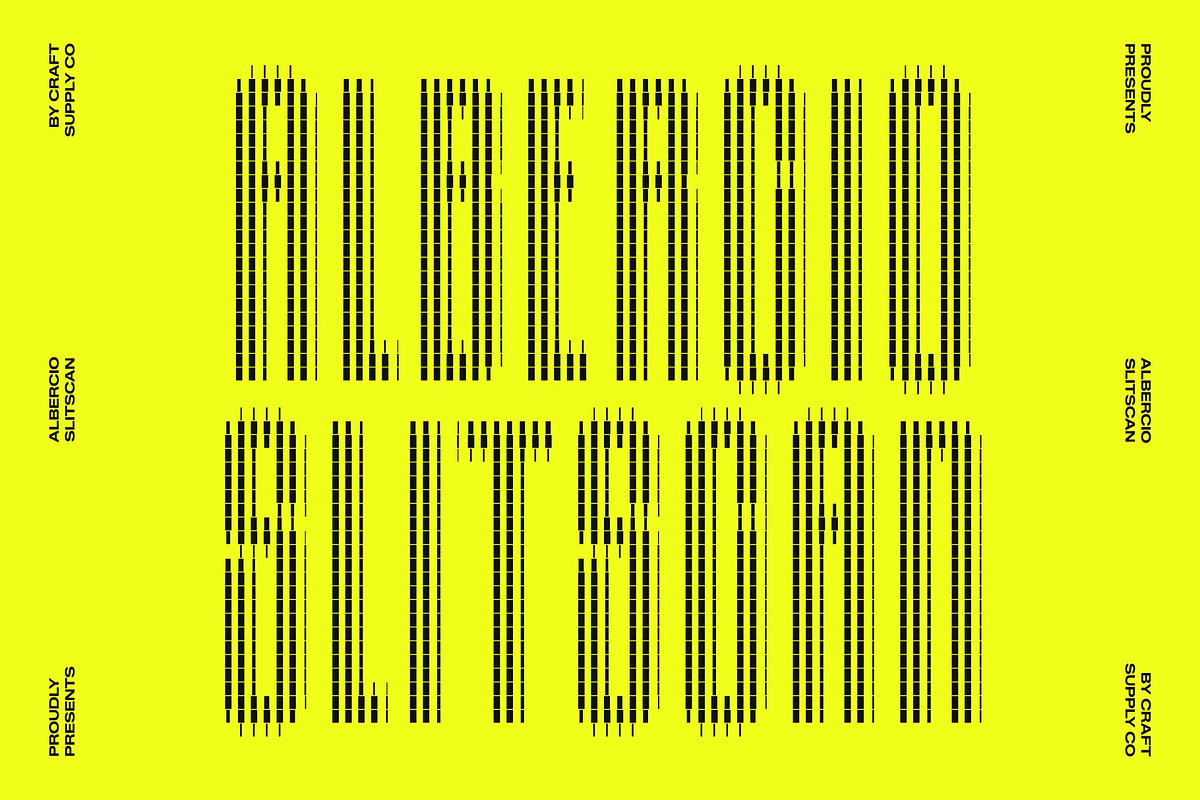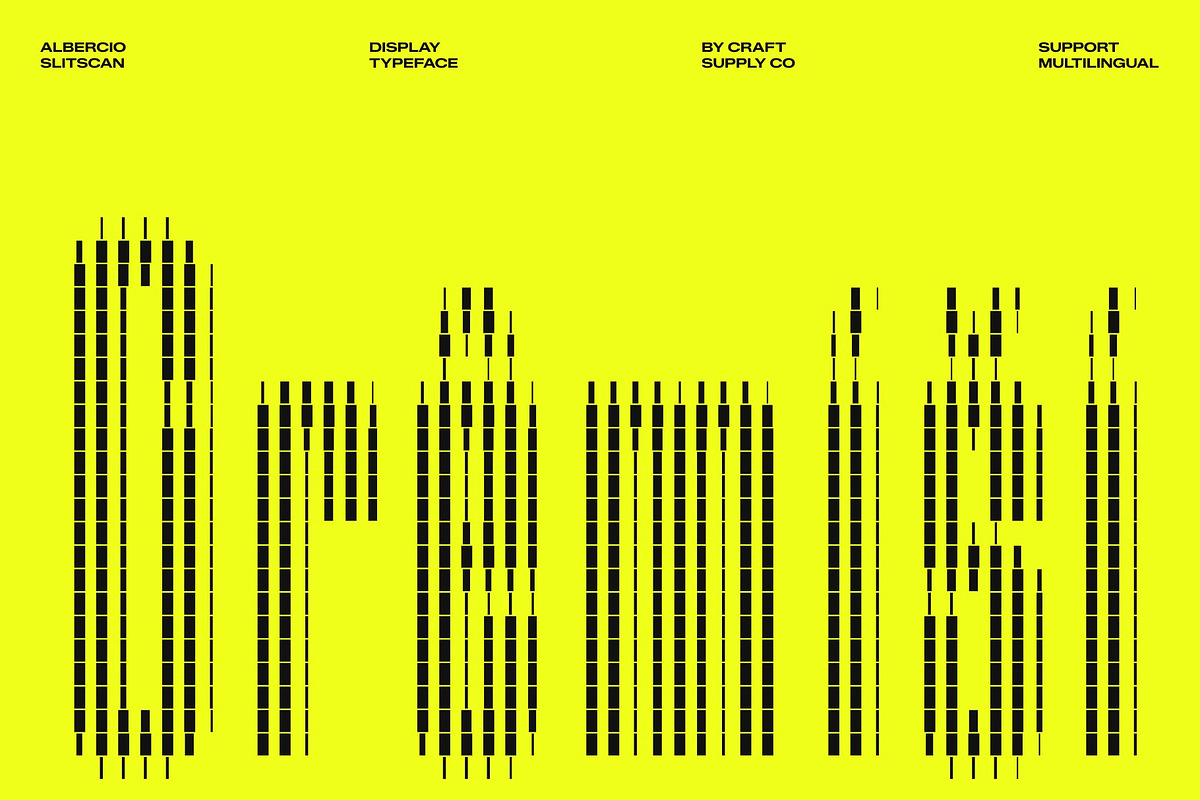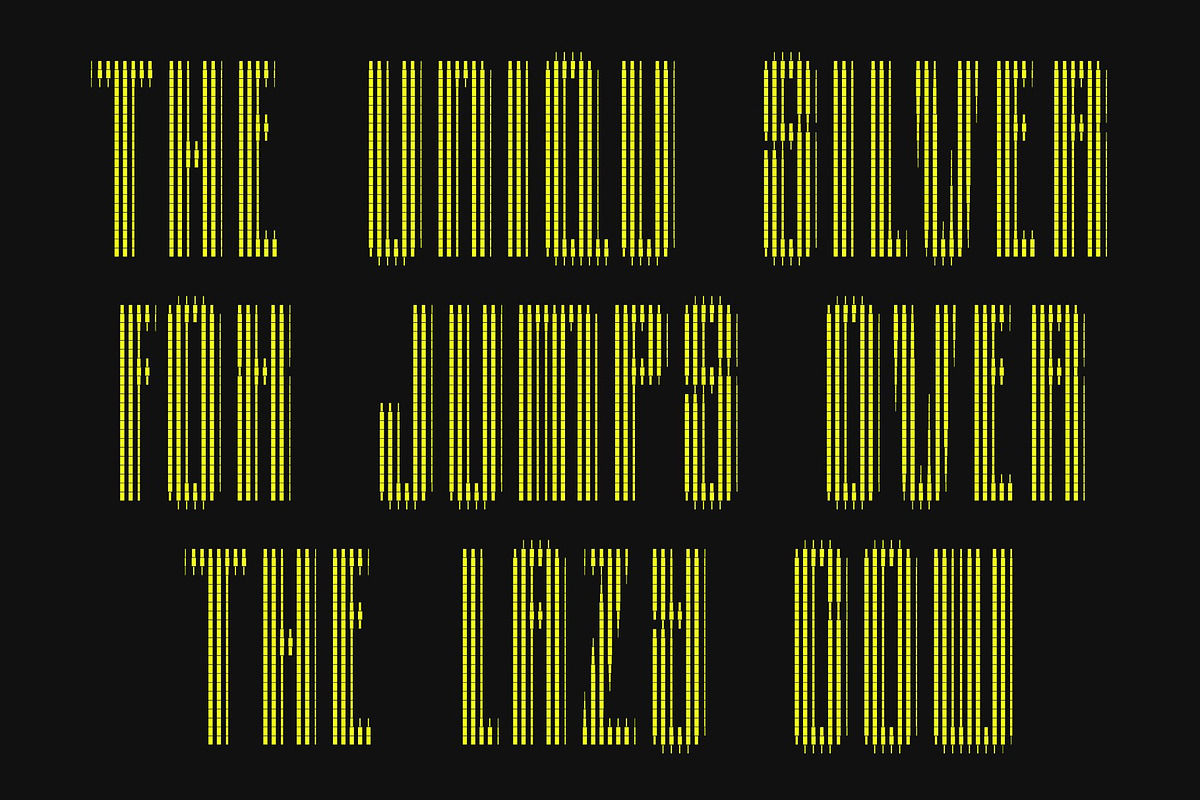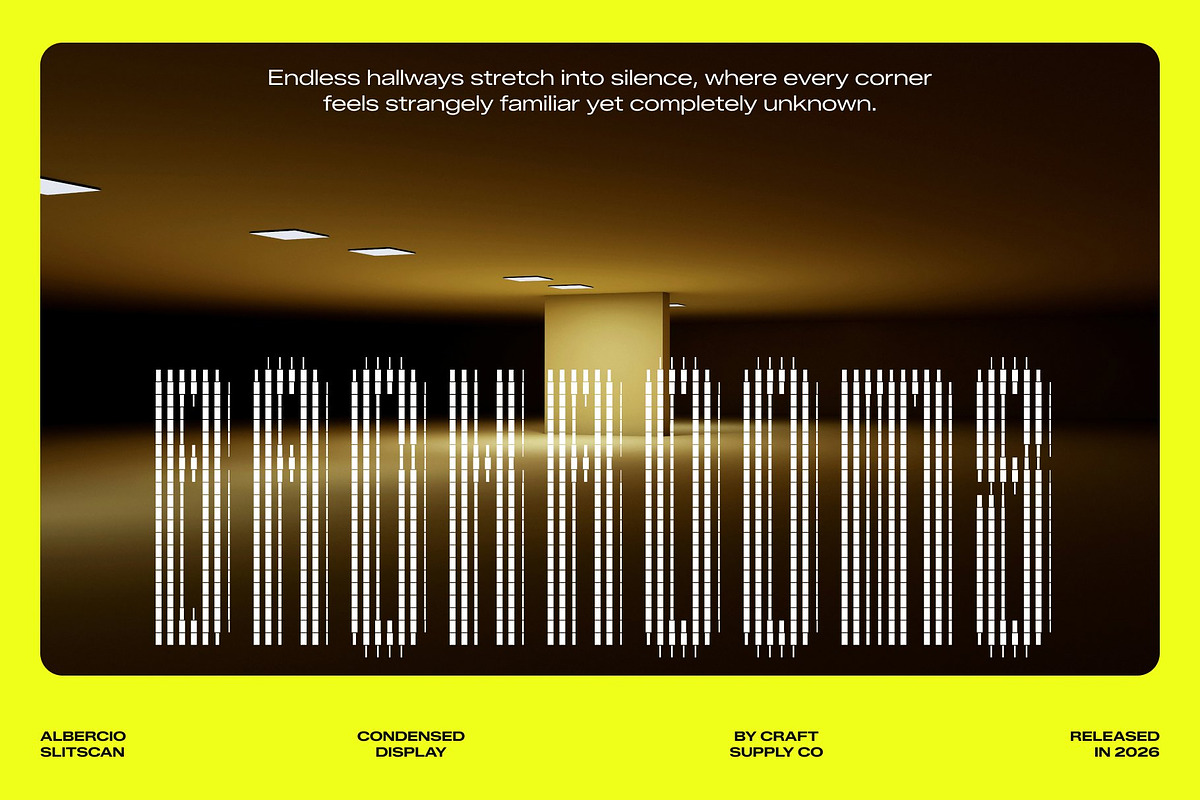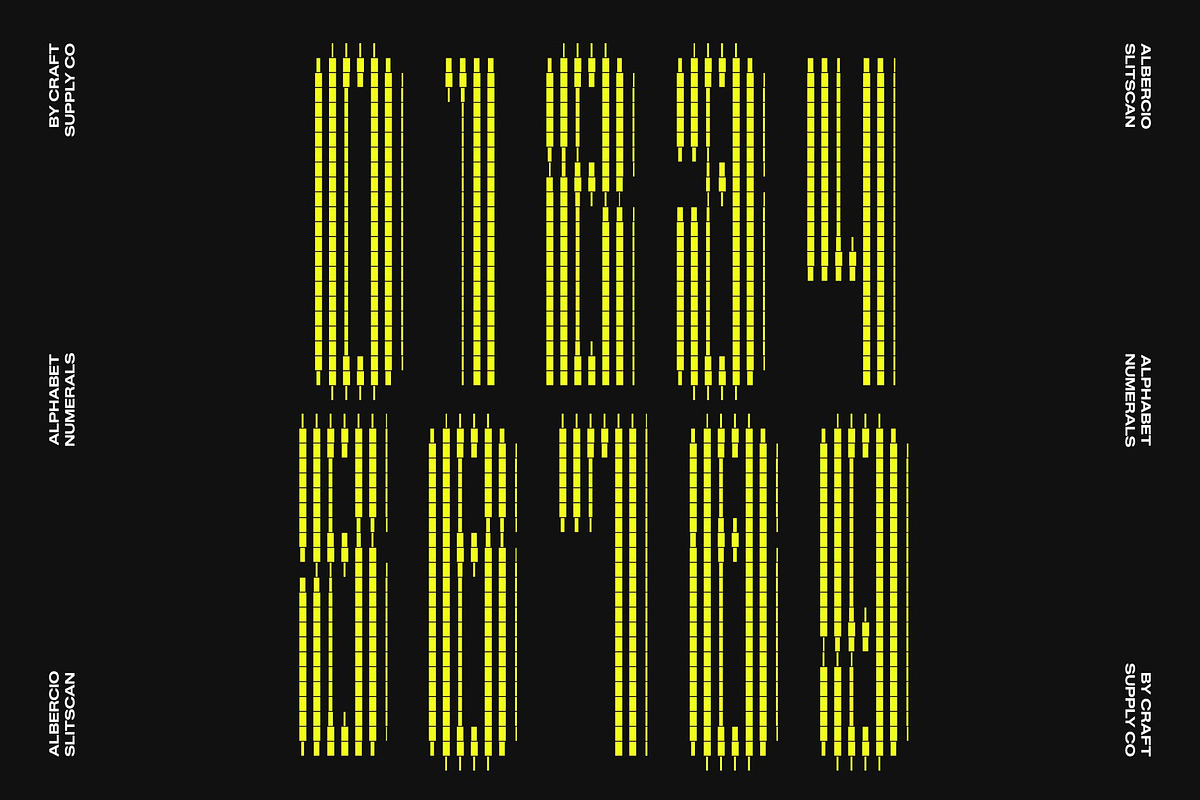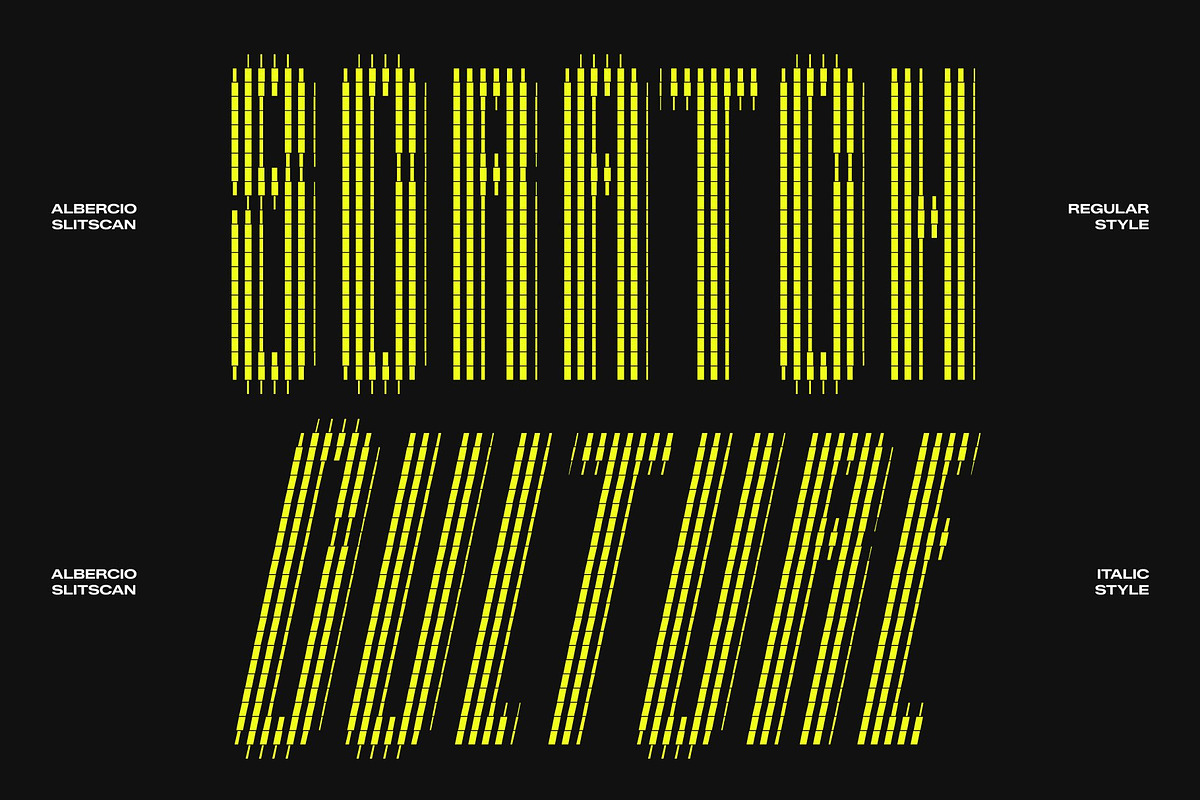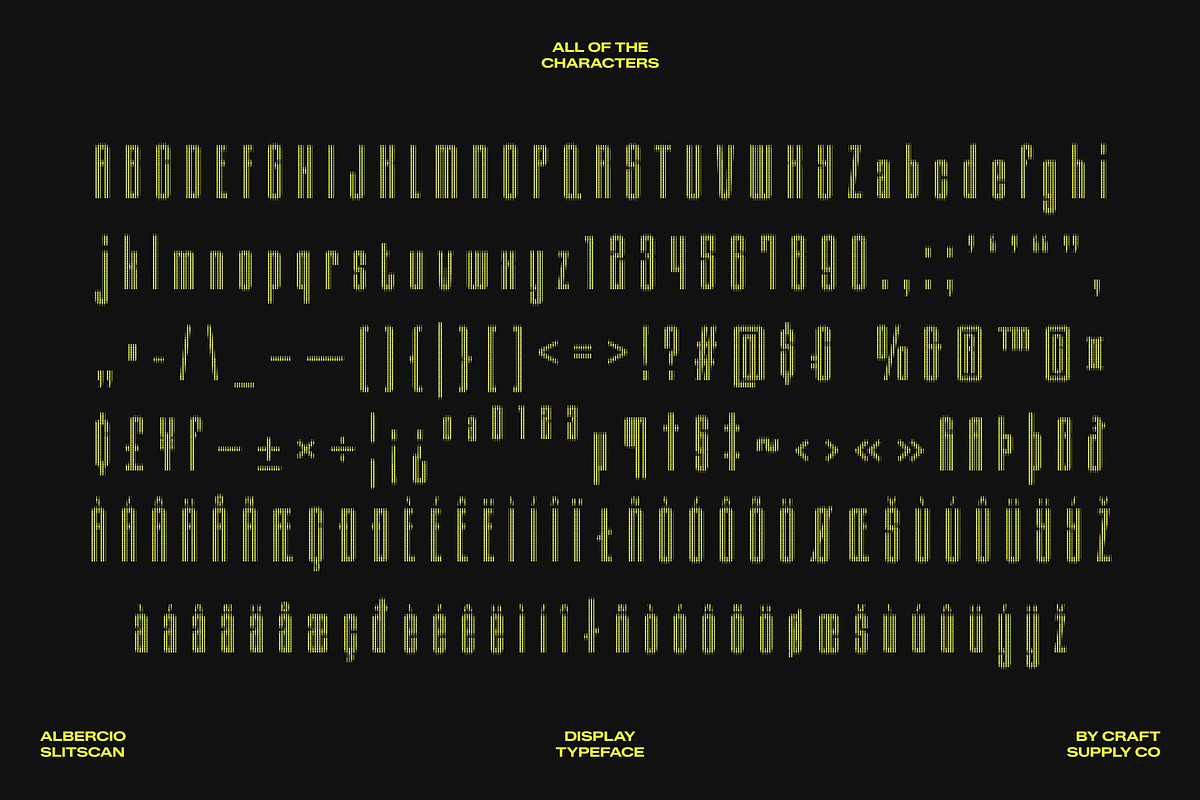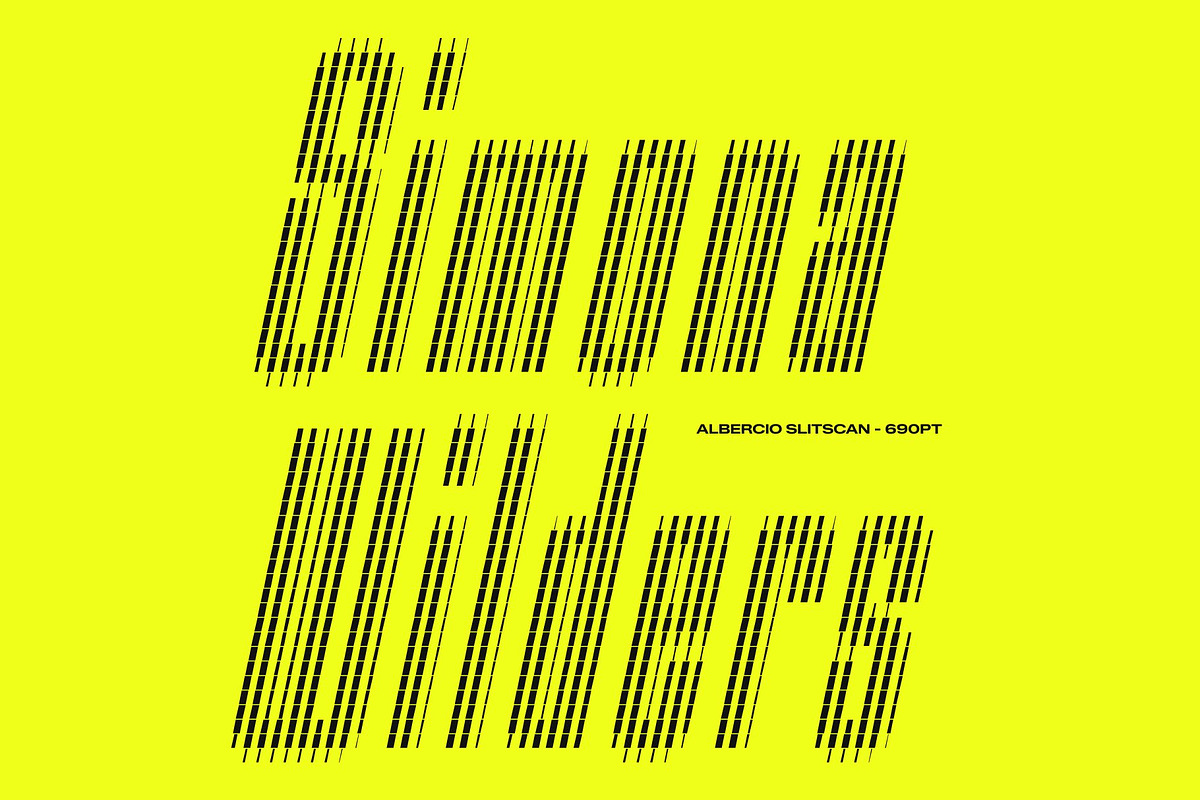
Albercio Slitscan
Albercio Slitscan – Condensed Sans Serif Font: Where Compact Power Meets Futuristic Distortion
Compact Forms with Strong Visual Impact This is a condensed sans serif font designed to deliver maximum impact in a streamlined form. Its narrow proportions and bold structure create a powerful visual presence while maintaining clarity and efficiency. Every character feels modern, focused, and highly functional, making the font ideal for designs that demand attention without sacrificing space.
Slitscan Effect with Futuristic Digital Energy This font draws inspiration from the iconic slit-scan visual technique. Vertical cuts, layered segments, and fragmented structures create a dynamic appearance filled with motion and technological intrigue. This effect introduces a futuristic cyberpunk atmosphere, blending glitch aesthetics, digital distortion, and experimental visual rhythm into every letterform.
Cyberpunk Style Meets Contemporary Typography This font delivers a typographic identity that feels innovative, energetic, and visually disruptive. Its fragmented forms evoke advanced technology, virtual environments, electronic culture, and digital experimentation, making it perfect for projects that embrace the future.
Perfect for Sci-Fi, Gaming, and Digital Design Ideal for sci-fi posters, experimental electronic album covers, technology competitions, branding, editorial layouts, tech-themed visuals, retro gaming graphics, cyber-inspired artwork, and digital events. Its futuristic slitscan forms make it perfect for headlines, logos, titles, promotional materials, and visual identities that seek a bold, high-tech, and unforgettable appearance.
Albercio Slitscan Regular
Albercio Slitscan Italic